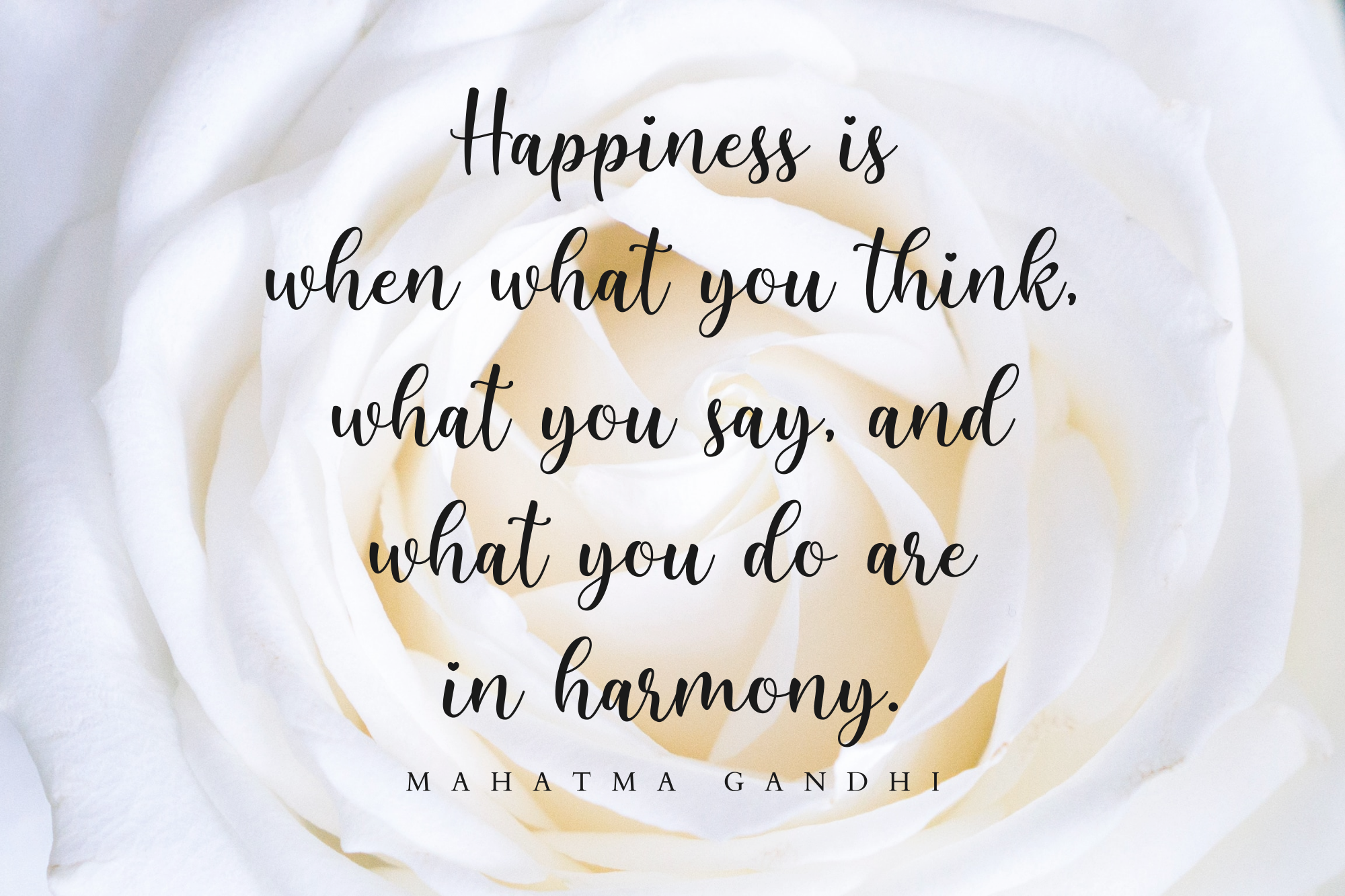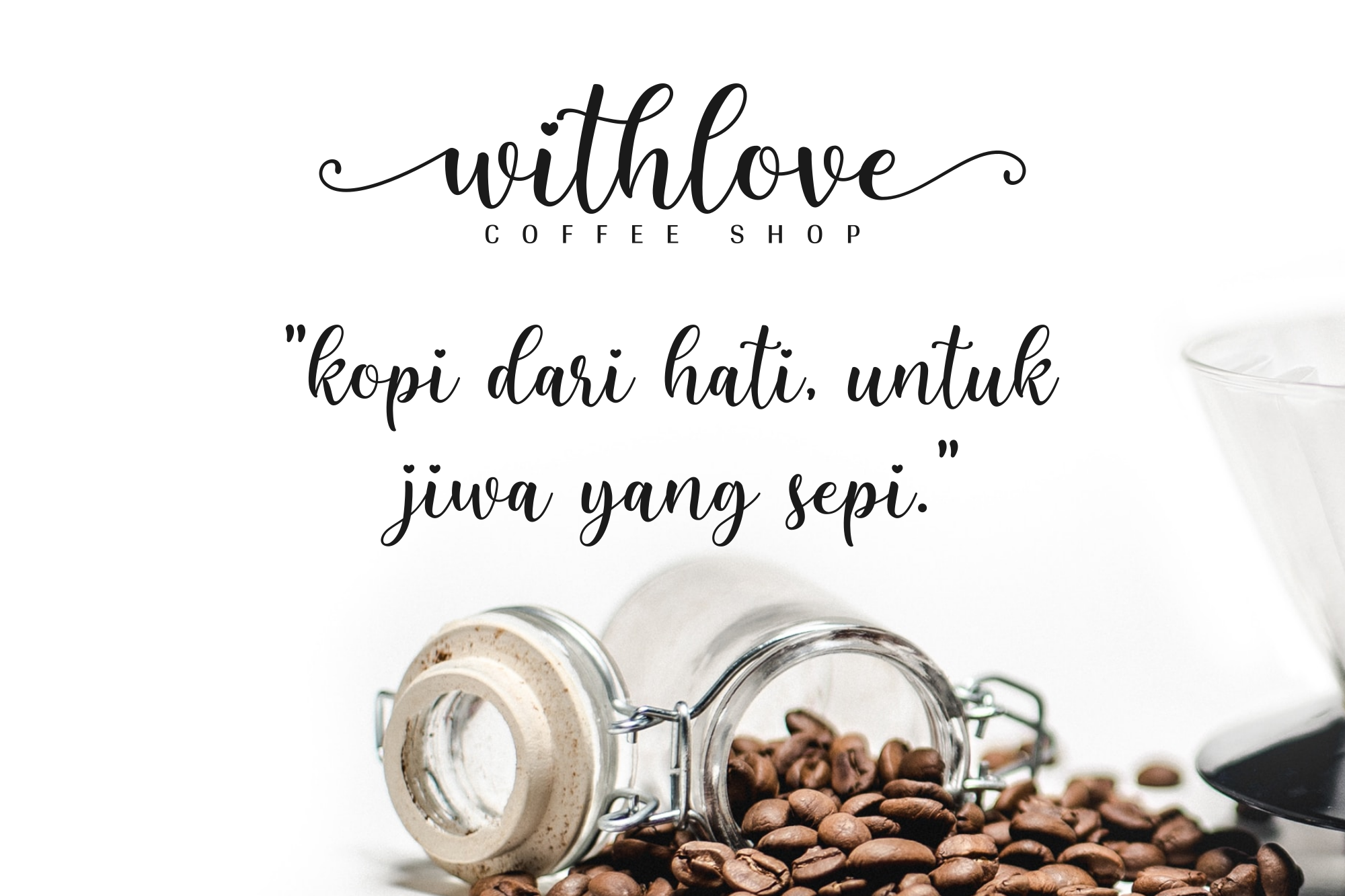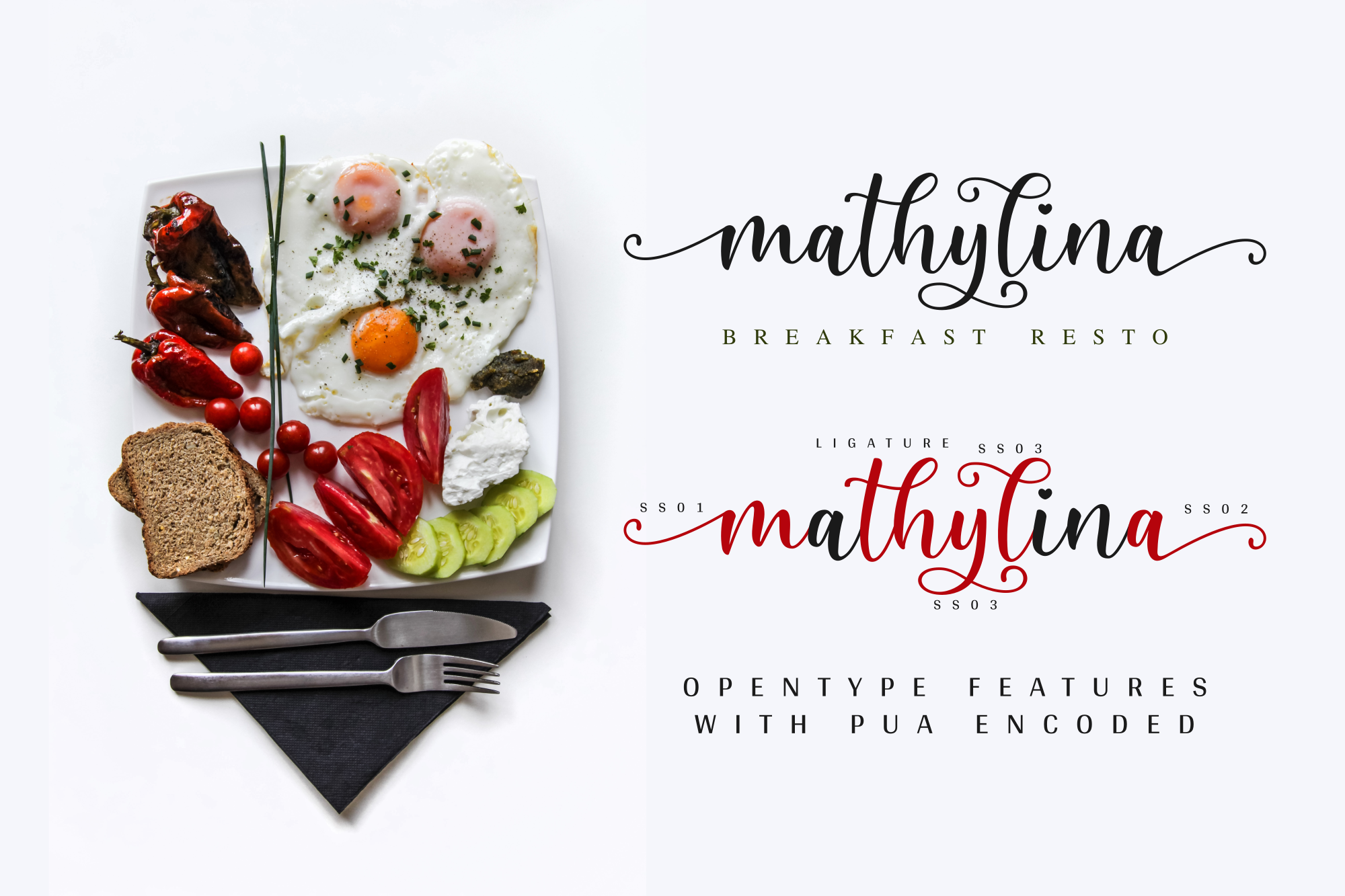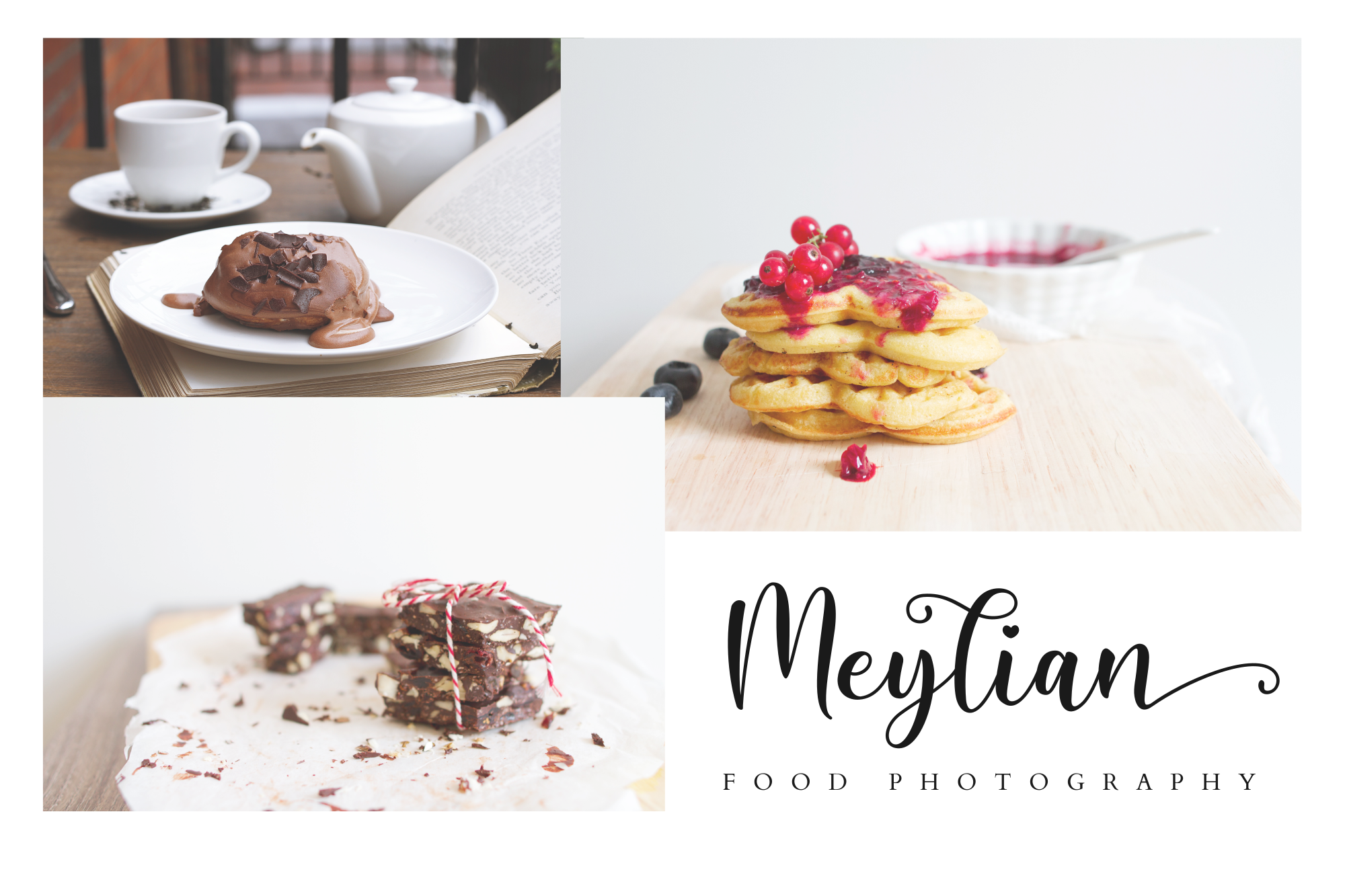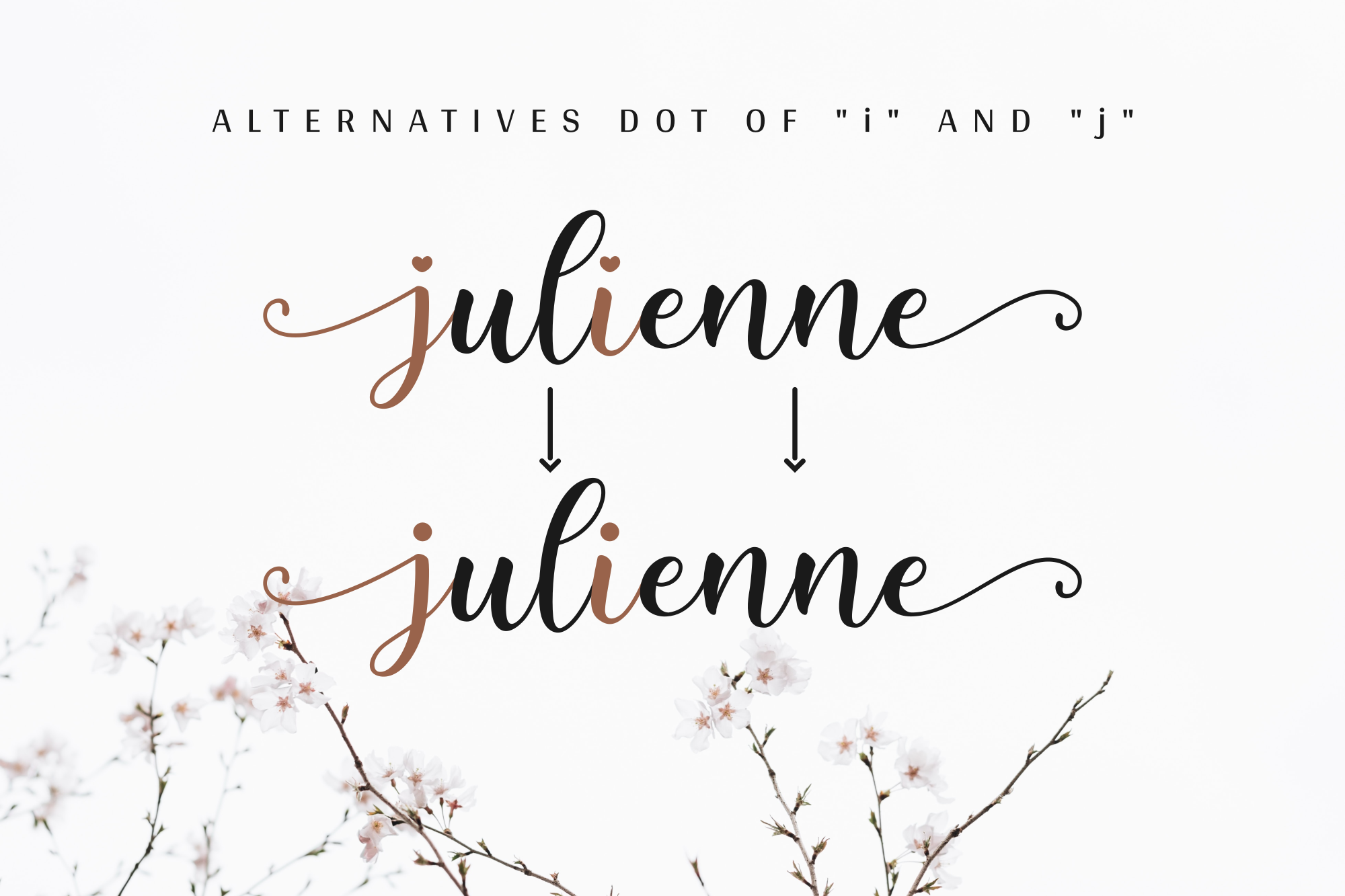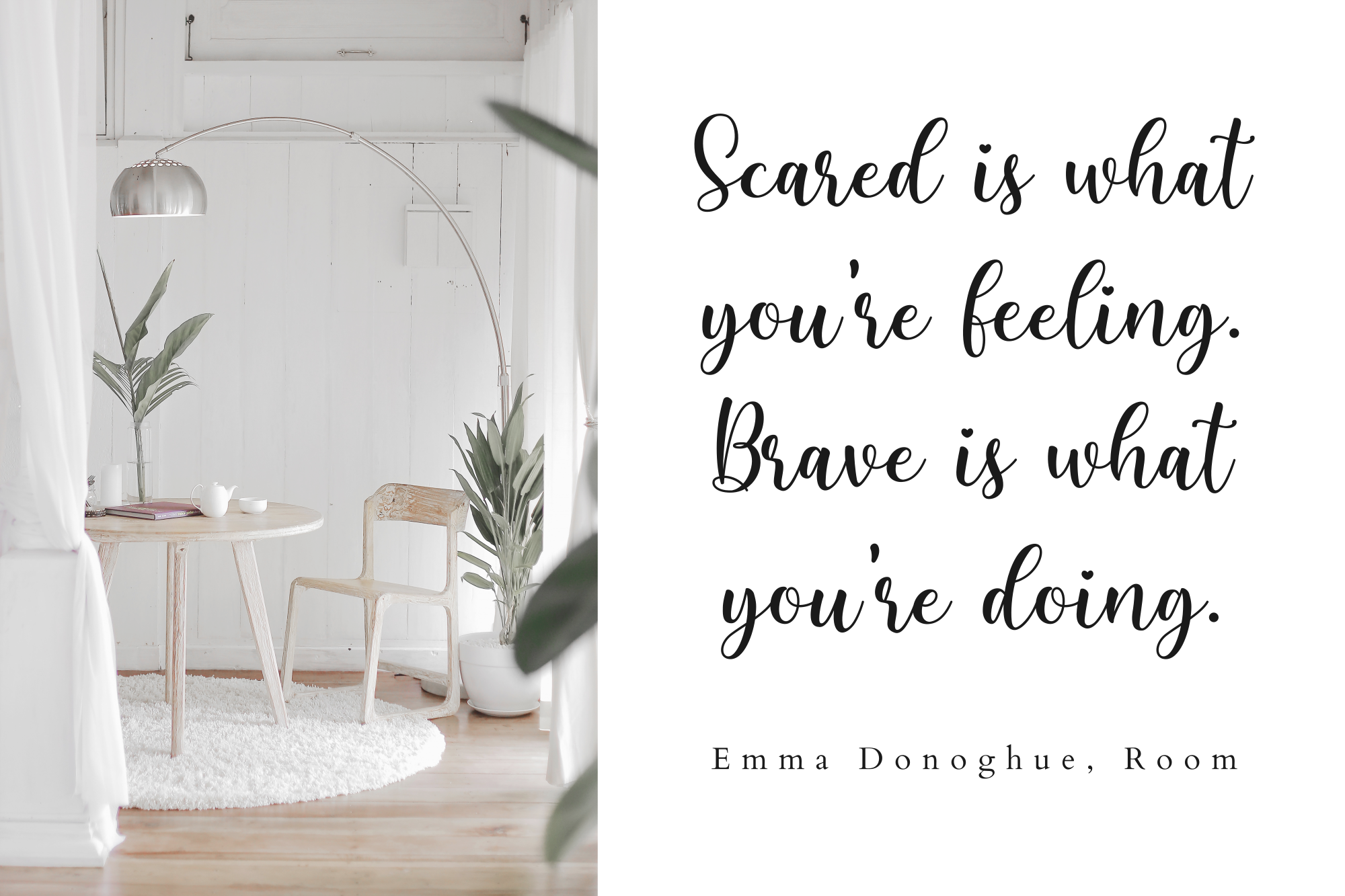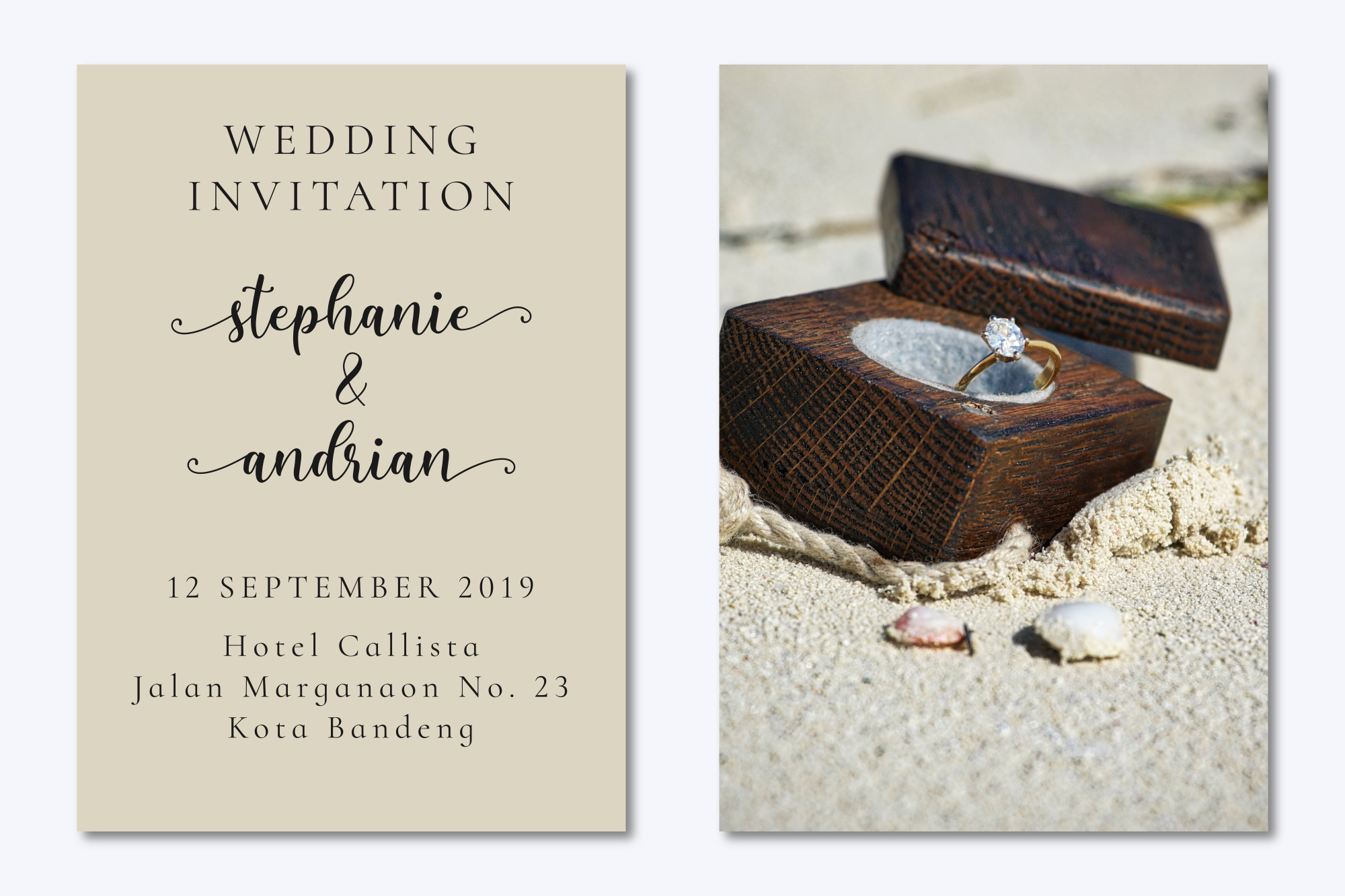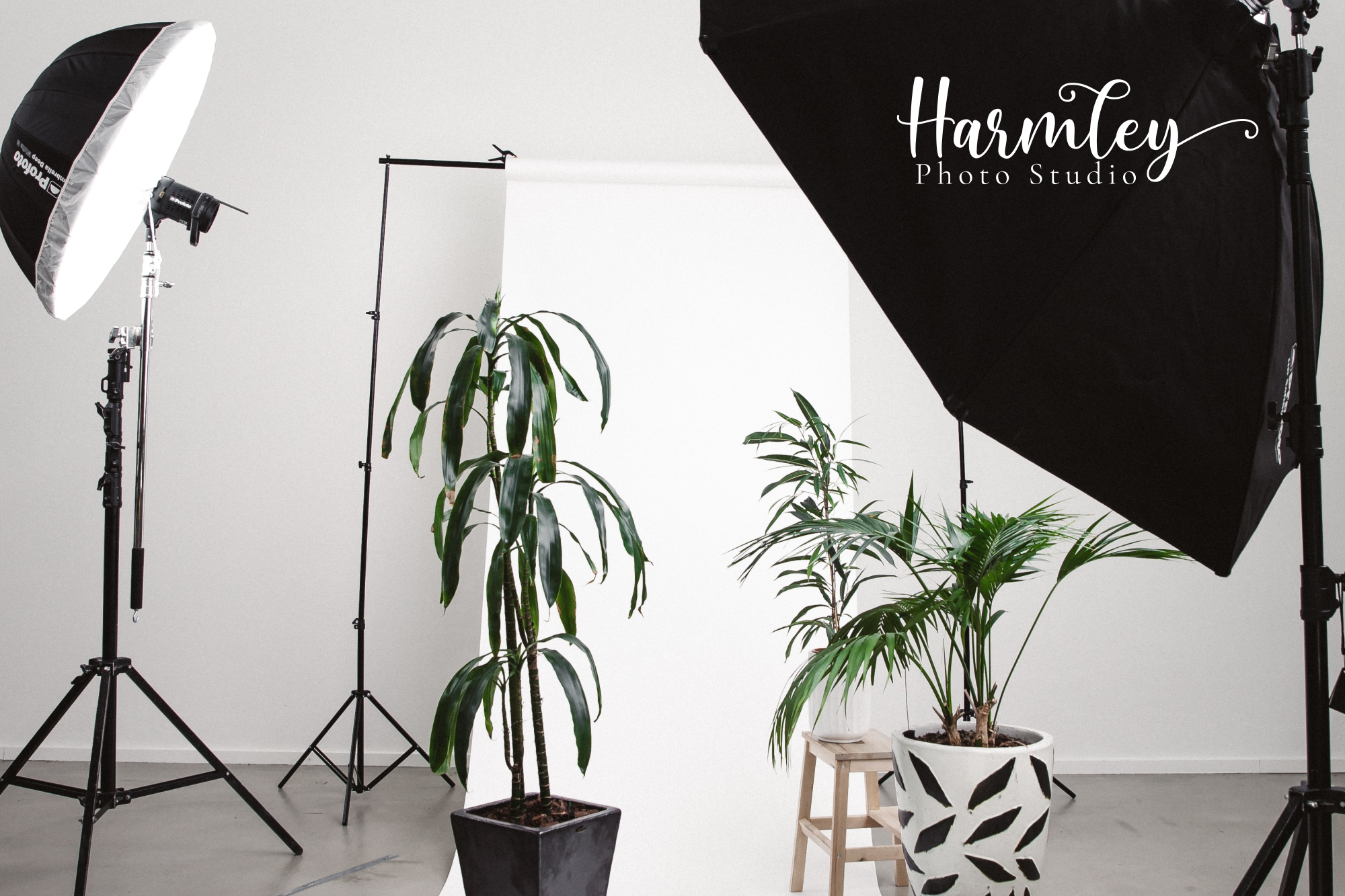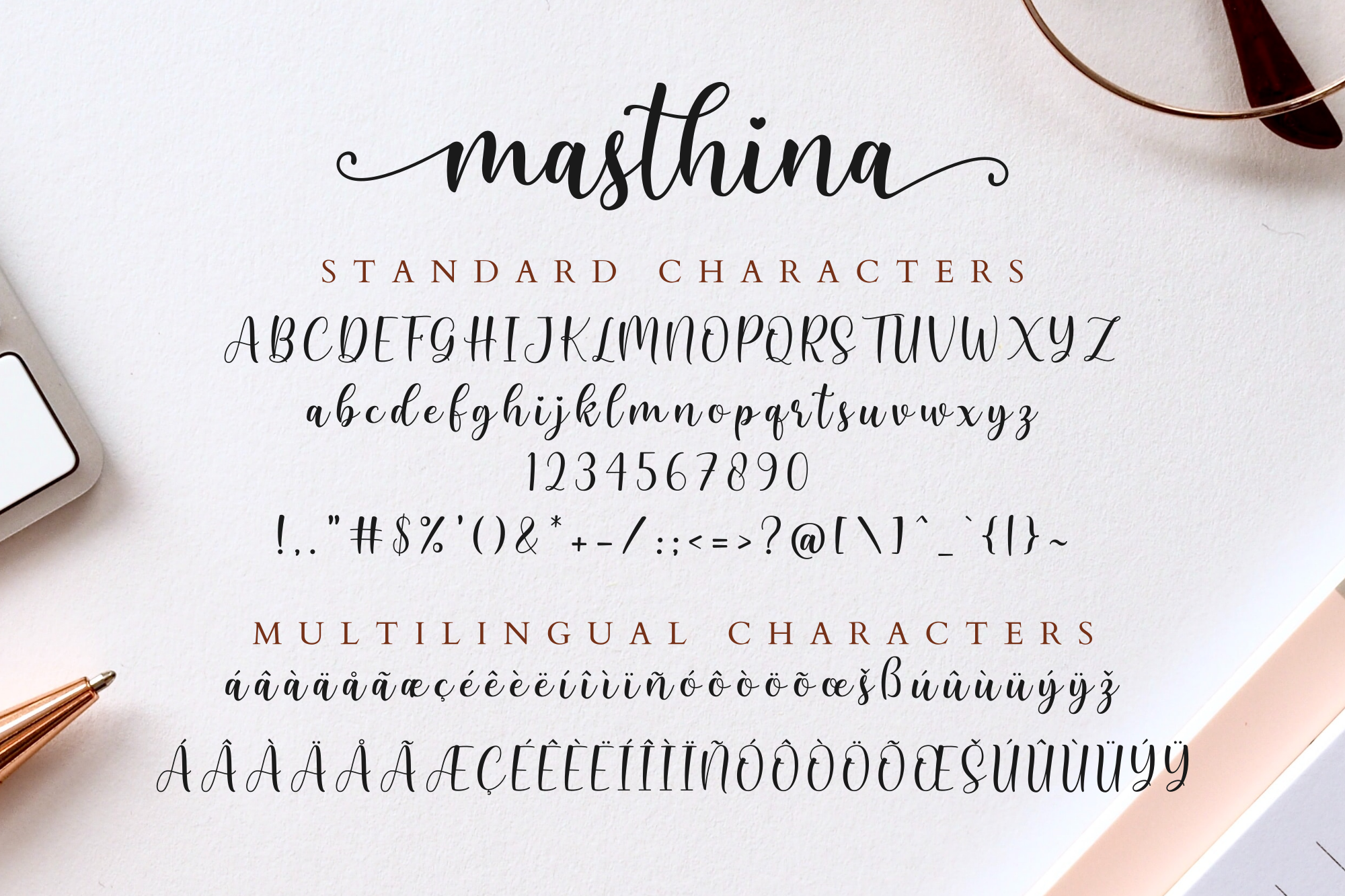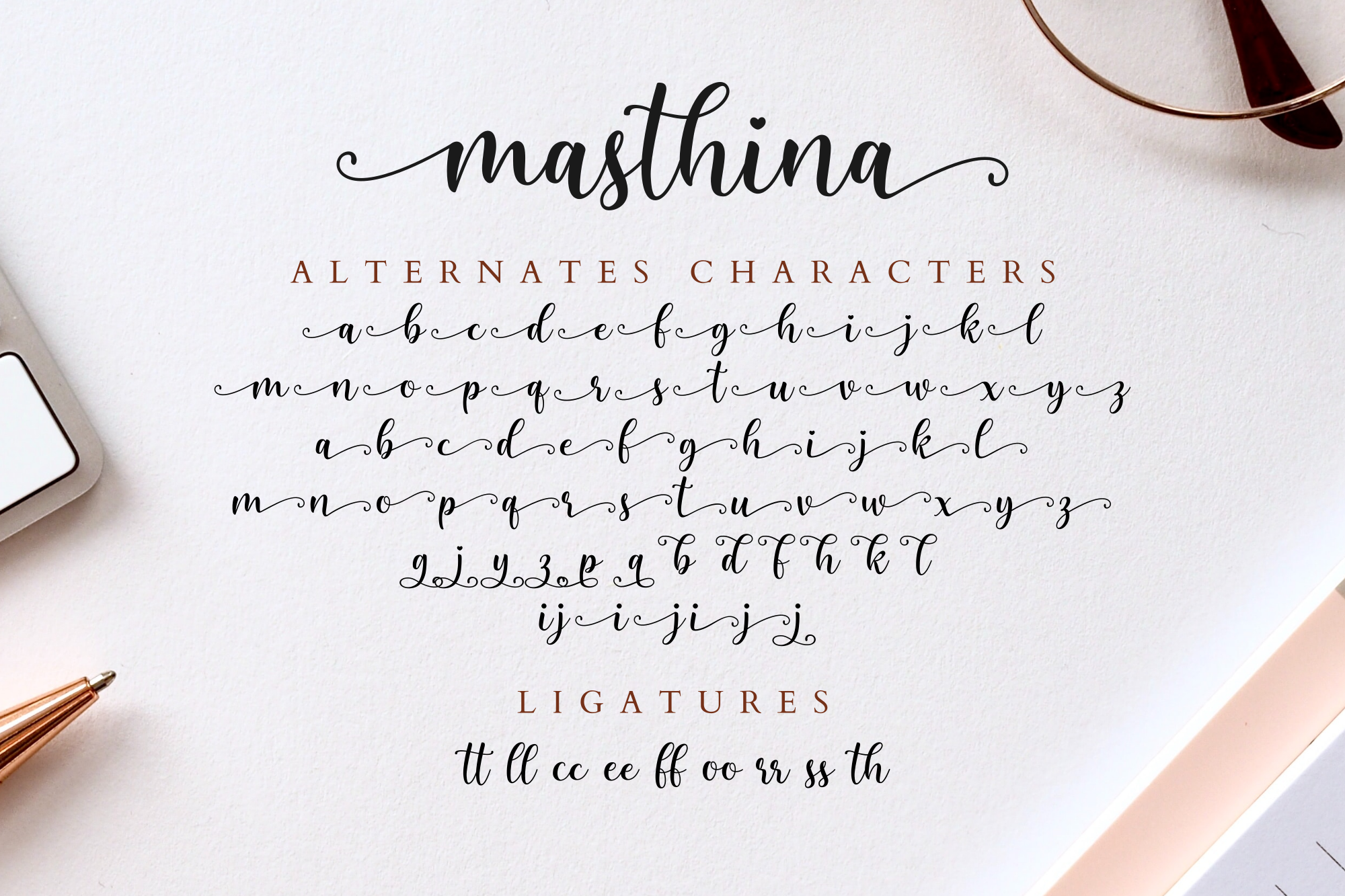
Masthina - Modern Calligraphy Font
Masthina is a lovely calligraphy typeface with a modern and bouncy style. It has a natural look that brings warmth and elegance to your designs.
Masthina is a lovely calligraphy typeface with a modern and bouncy style. It has a natural look that brings warmth and elegance to your designs. Use it for logos, wedding stationery, invitations, branding, quotes, packaging, social media posts, and more.
Masthina - Modern Calligraphy Font
Logos, wedding stationery, invitations, branding, quotes, packaging, social media posts,